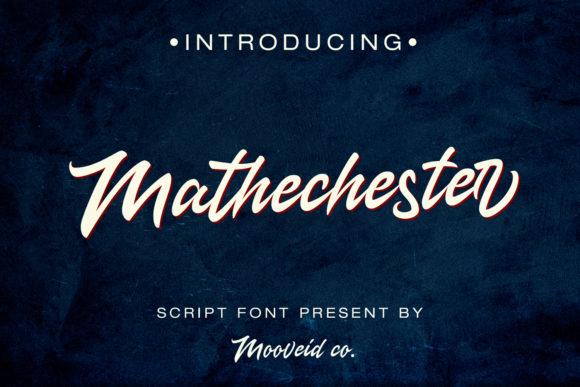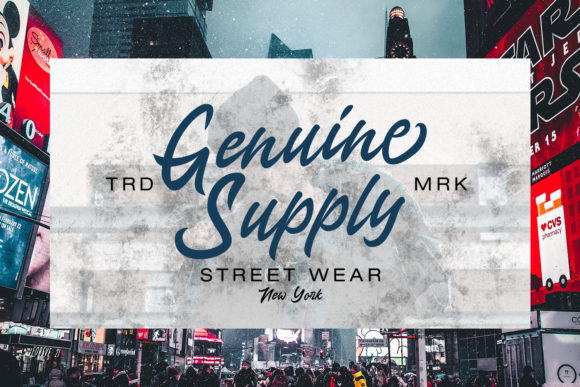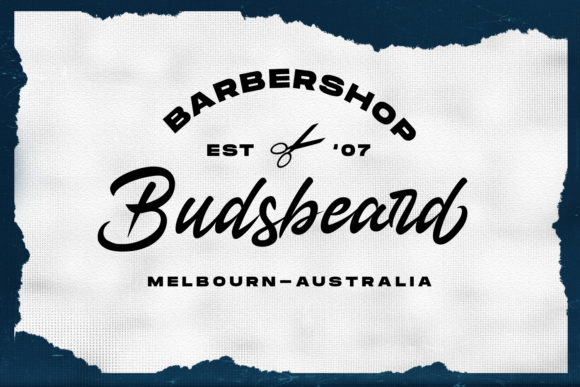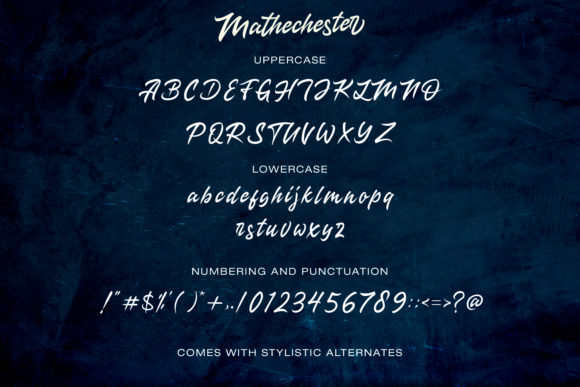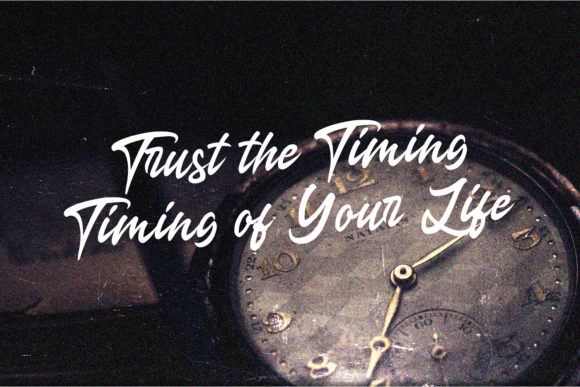
Mathechester Font
About Mathechester Font
Mathechester is a modern signature font. Whether you’re looking for fonts for Instagram or calligraphy scripts for DIY projects, Mathechester will turn any creative idea into a true piece of art!